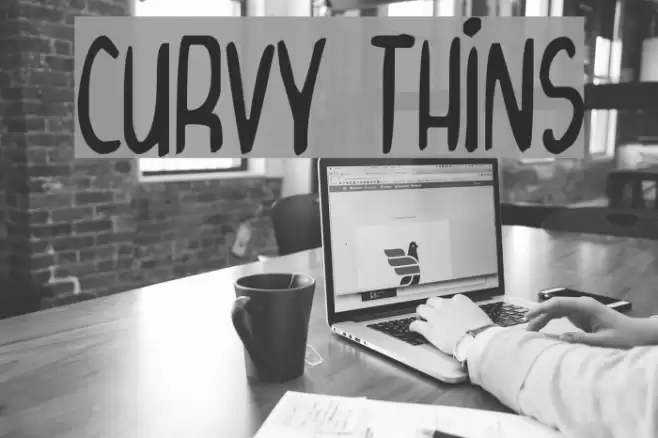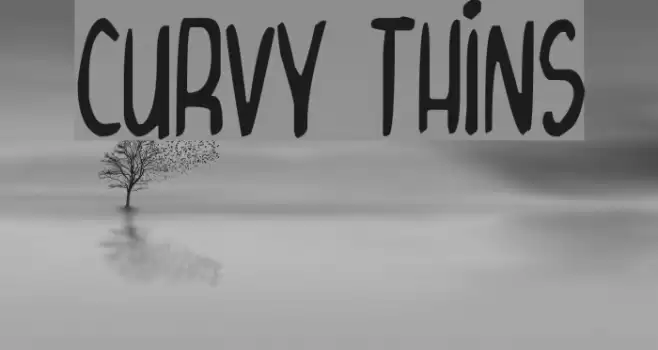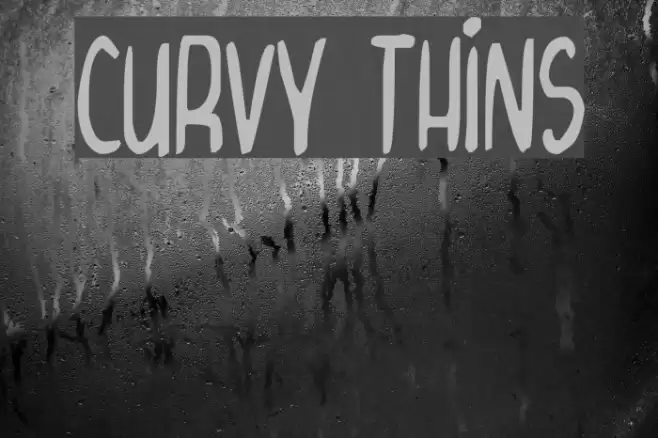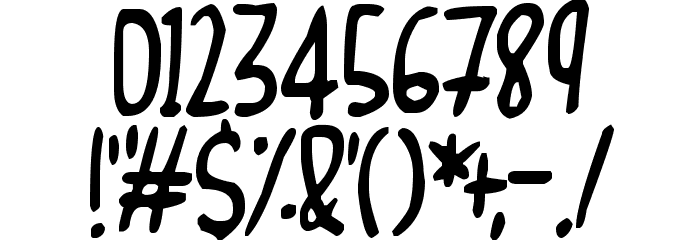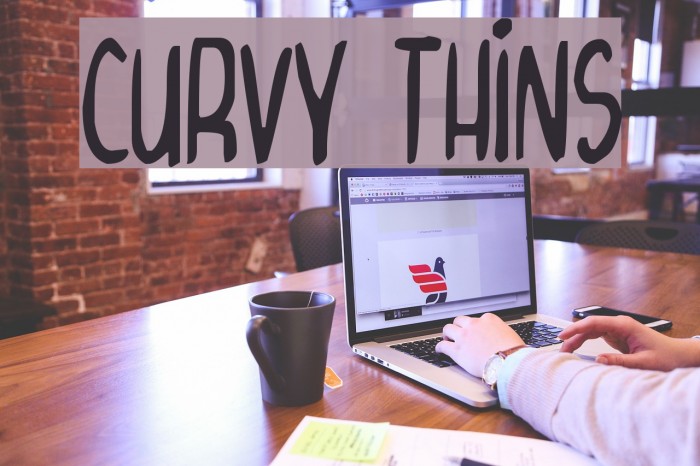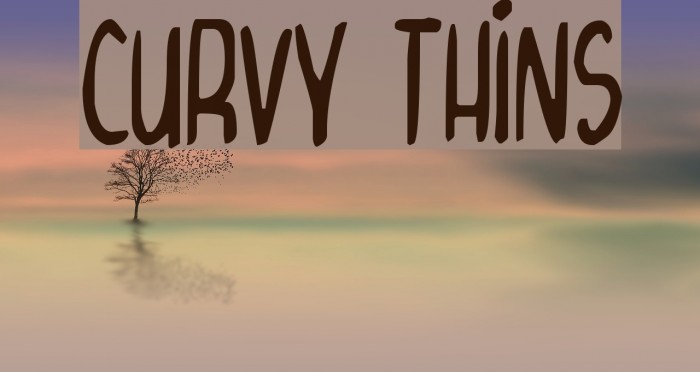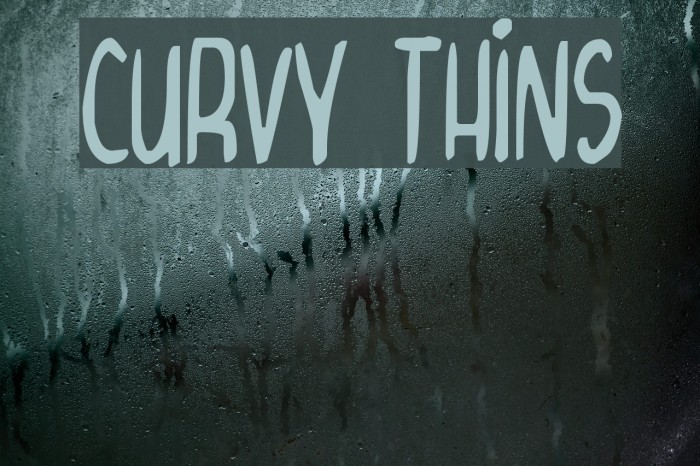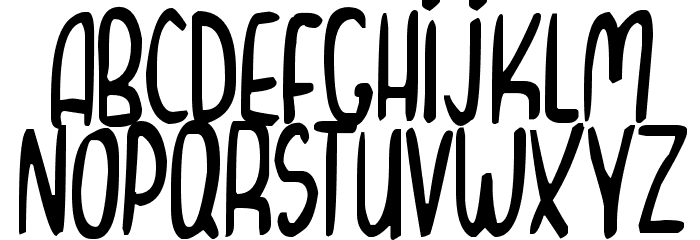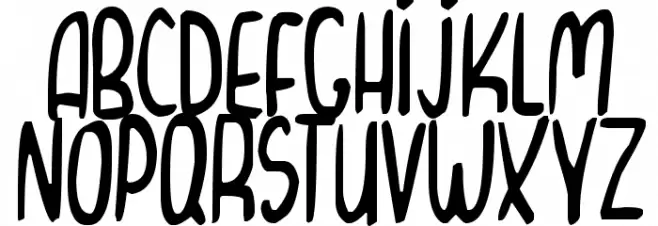
Curvy Thins Font
Curvy Thins Description
This playful and energetic font features a unique blend of curvy and thin strokes, creating a whimsical and friendly appearance. The letters are elongated with a slight slant, giving them a dynamic and lively feel. The rounded edges and smooth curves add a touch of softness, making it approachable and fun. The numerals and special characters maintain the same playful style, ensuring consistency throughout. This font is perfect for projects that require a touch of creativity and personality.
A playful, curvy font with thin strokes and a whimsical style from Uncategorized fonts.
- Proposed Projects: Ideal for children's books, playful branding, creative posters, and informal invitations.
- Overall Style: Playful